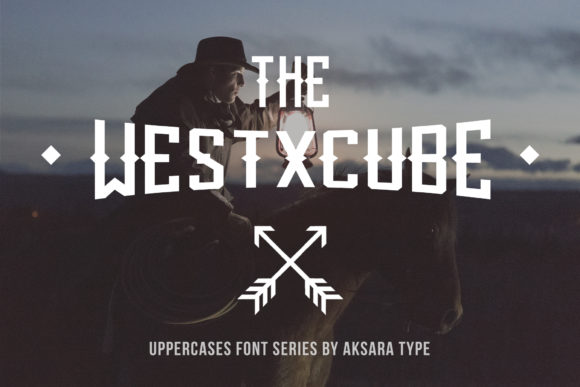
The Westxcube Font
**Discover the Westxcube Font - A Timeless Masterpiece for Captivating Designs**
Welcome to the world of The Westxcube, a display font that embodies the harmony of vintage charm and modern elegance. This extraordinary creation from Imoodev will ignite your designs with its bold character and undeniable personality.
Immerse yourself in the captivating aura of Westxcube, where vintage meets modernity in a tantalizing dance. Let its unique elements inspire you to break boundaries and express your creativity like never before. Each character exudes an urban vibe, evoking a sense of authenticity and sophistication.
With Westxcube, you'll transcend the ordinary and elevate your designs to new heights. Its stunning presence will make a lasting impression, leaving an unforgettable mark on your audience. Whether you're crafting logos, posters, branding materials, or social media graphics, Westxcube will empower you to make a statement that resonates.
Don't settle for the mundane. Unleash the power of Westxcube today and embark on a journey of captivating design. Let its timeless beauty inspire you to create masterpieces that will captivate and enthrall.